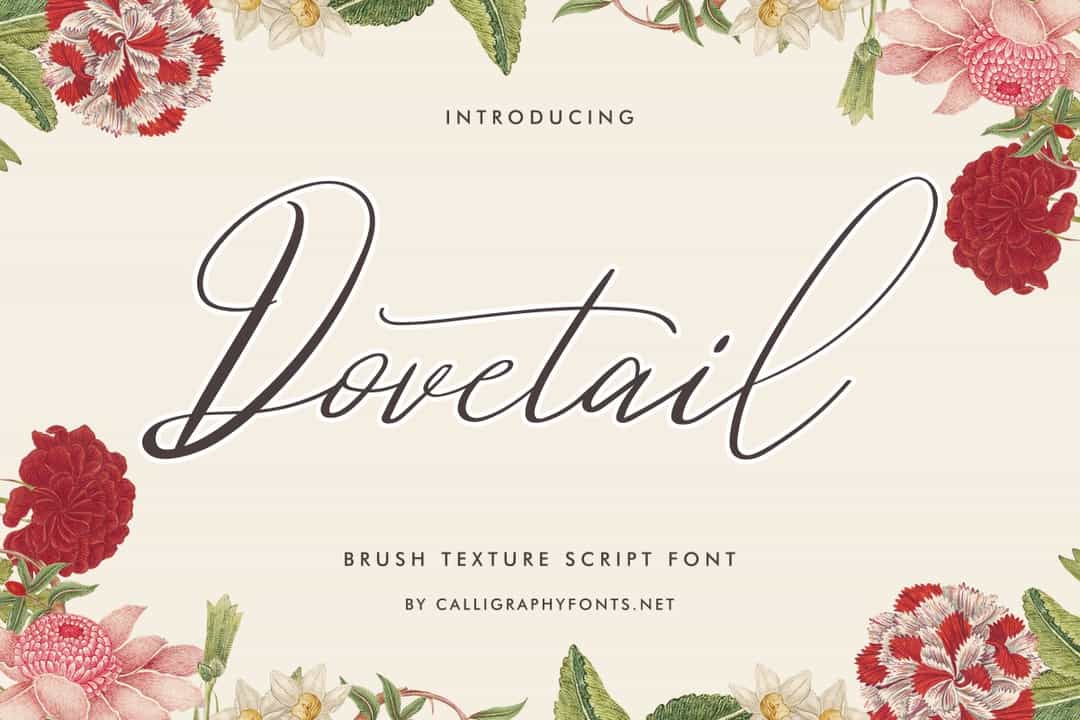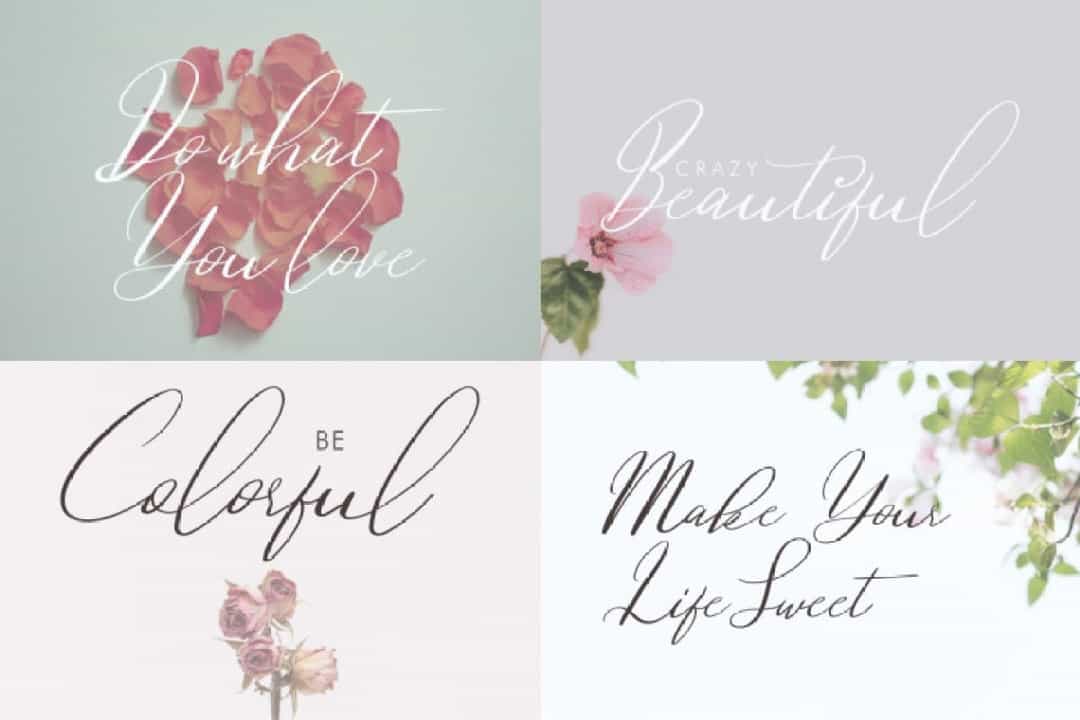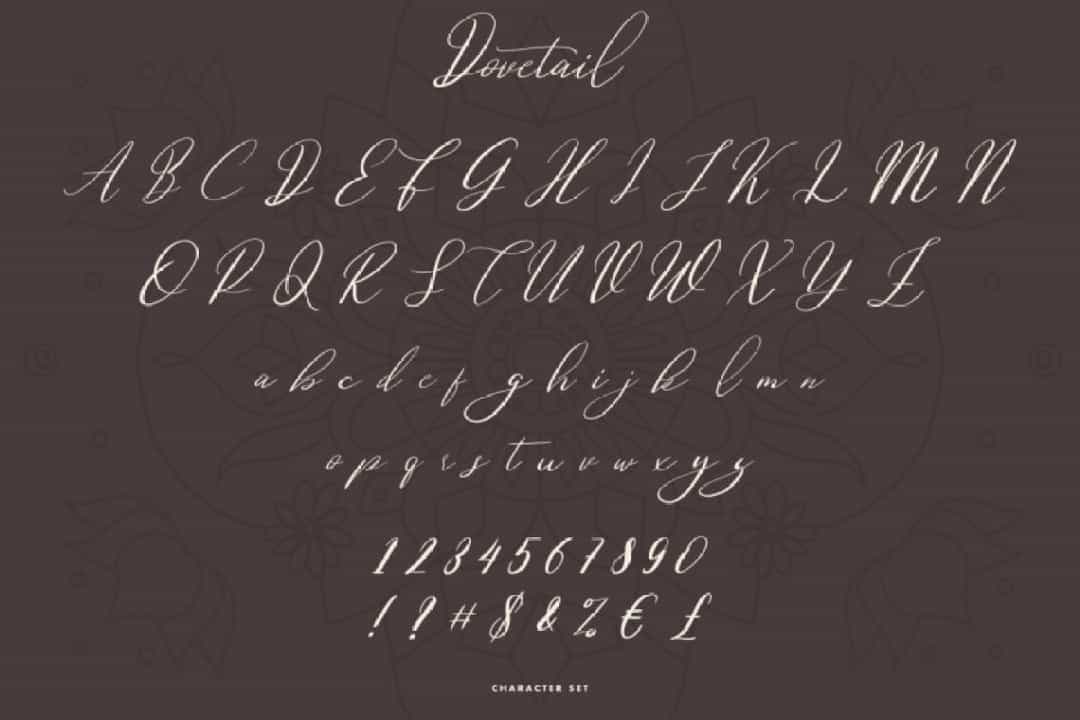
Discover Dovetail Calligraphy Script Font, part of the Calligraphy Handwritten Script collection—a versatile and unique font perfect for adding a personal touch to your projects. Download it for free and enjoy crafting designs with style, from invitations to social media posts. This font is available exclusively for personal use, giving you the freedom to create without limits. Unlock your creativity with Dovetail Calligraphy Script Font today!
Dovetail is a luxury and glamorous handwriting calligraphy font that gives elite looks and thus is a perfect handwriting calligraphy writing script.